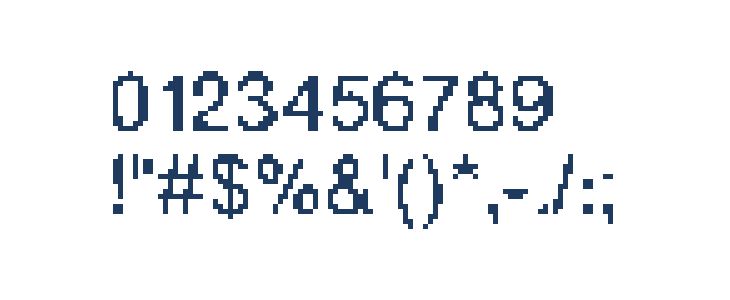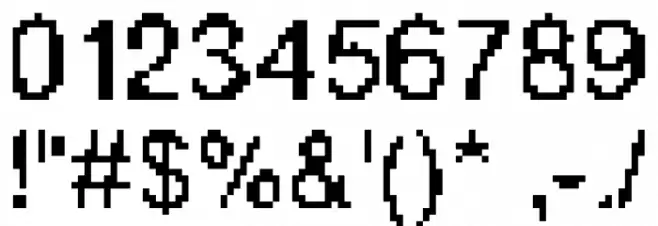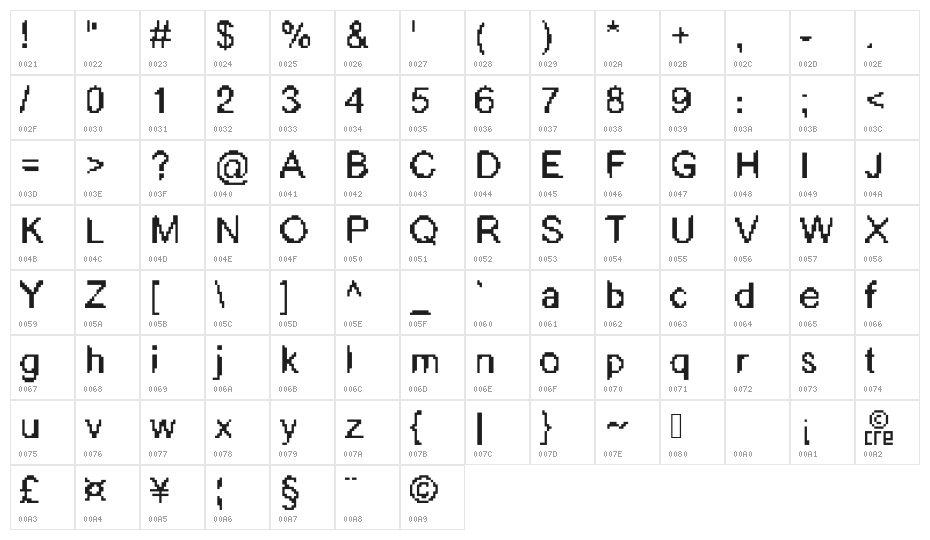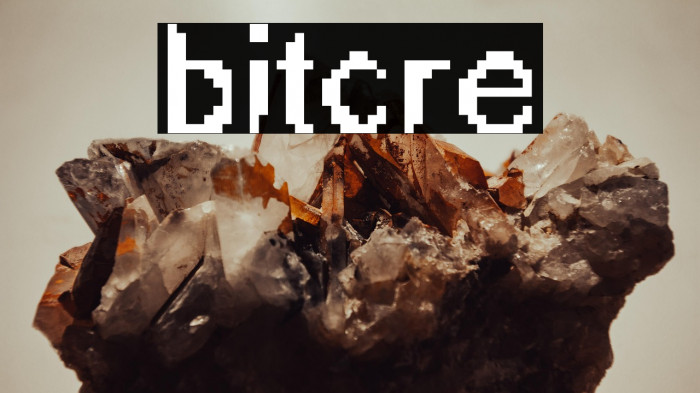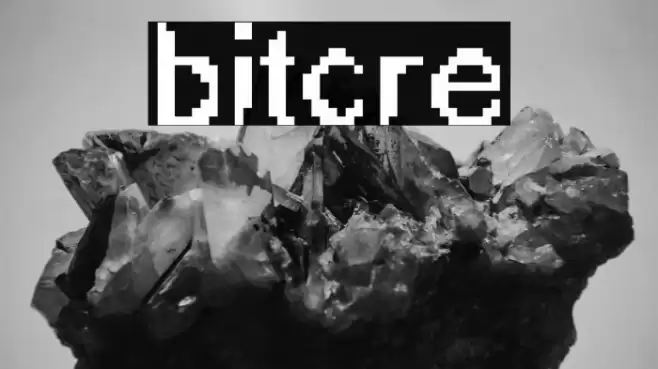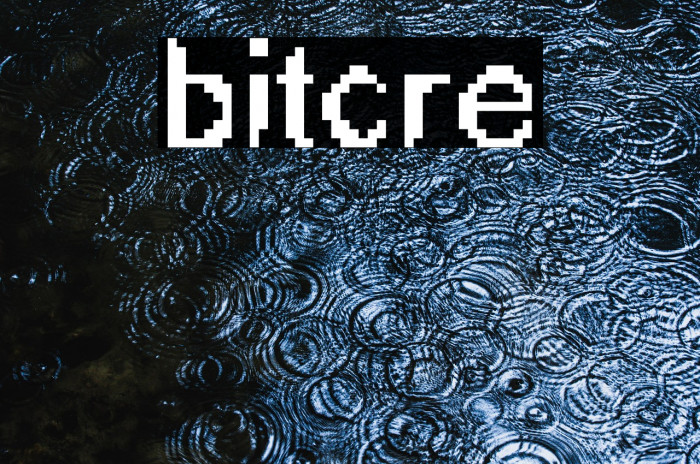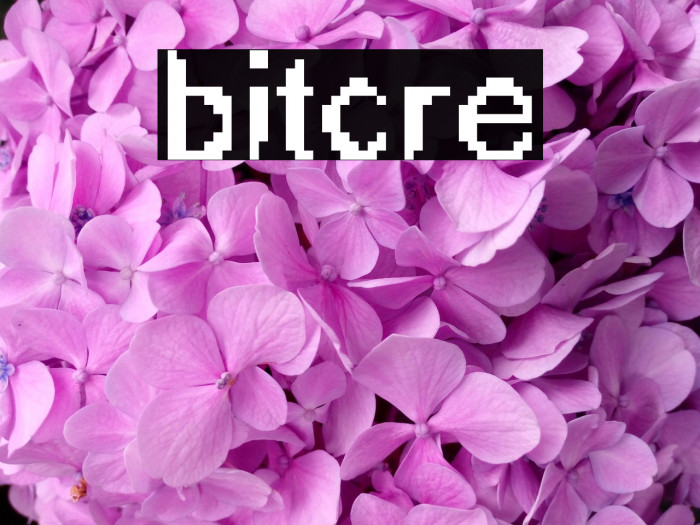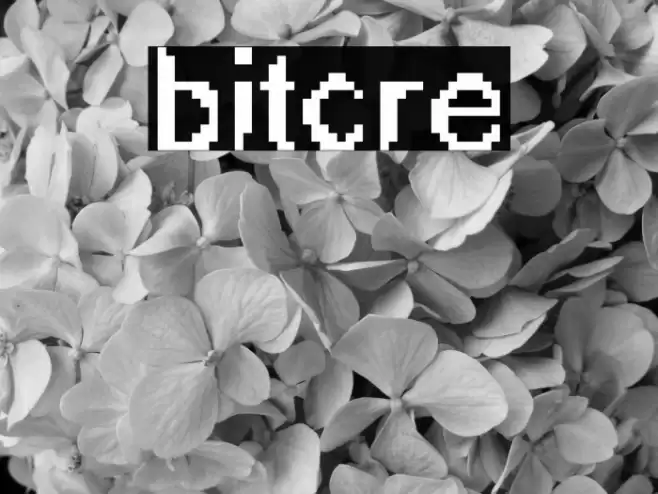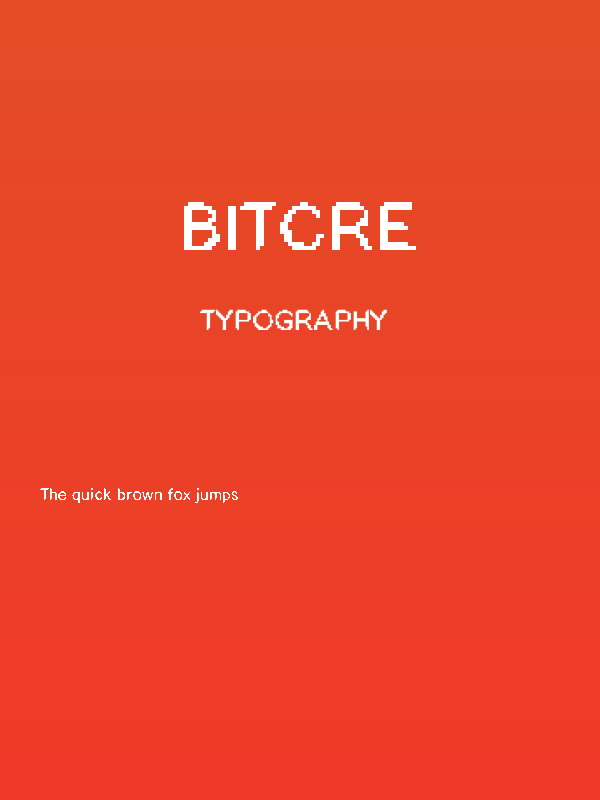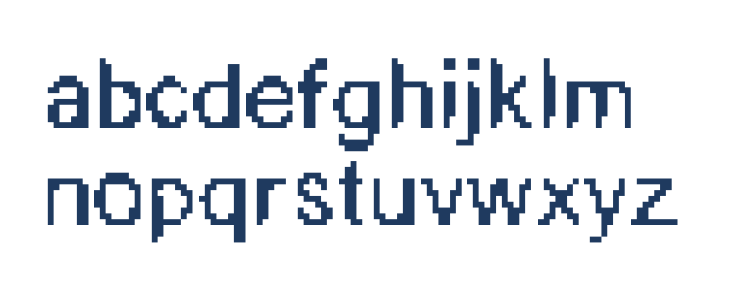
bitcre Font
bitcre Description
This font features a pixelated, blocky design reminiscent of early digital displays and video games. Each character is composed of uniform square pixels, giving it a distinctly retro and digital aesthetic. The uppercase and lowercase letters maintain a consistent height and width, contributing to a monospaced appearance. The numbers and special characters follow the same pixelated style, ensuring uniformity across all glyphs. This font's unique style makes it ideal for projects that aim to evoke nostalgia or a tech-inspired theme.
| Use Case | Logos, Headlines, Digital Art |
| Proposed Projects | Ideal for retro video game designs, tech-themed posters, digital art projects, and any creative work that requires a nostalgic or digital aesthetic. |